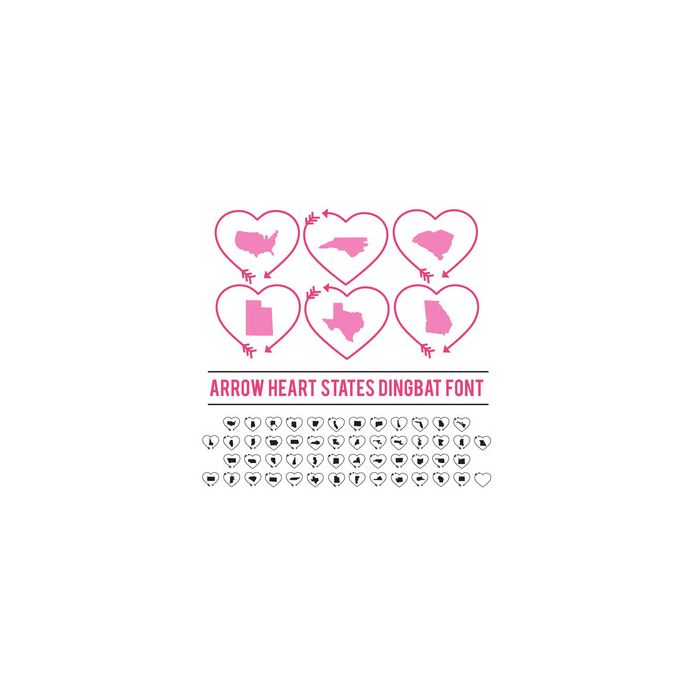
arrow heart states dingbat font
This OTF dingbat font comes with two heart arrow designs and all 50 states, plus one plain heart and the whole United States.